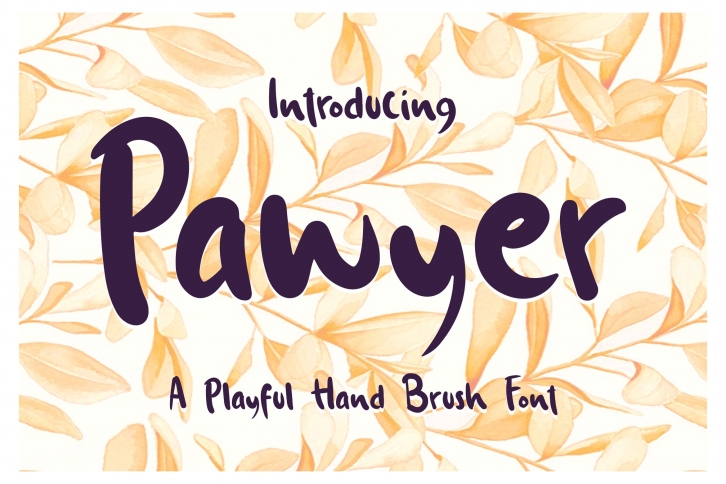
Pawyer - A Playful Hand Brush Font Download
Pawyer is a beautiful font that was designed by IanMikraz. It's a great choice for designers and creatives who need such a font. It was released on December 21, 2020 and the file size is 20.40 MB. Pawyer may give a more youthful, expressive and casual look to your project. It is a very beautiful, refined, elegant, and high-quality font.